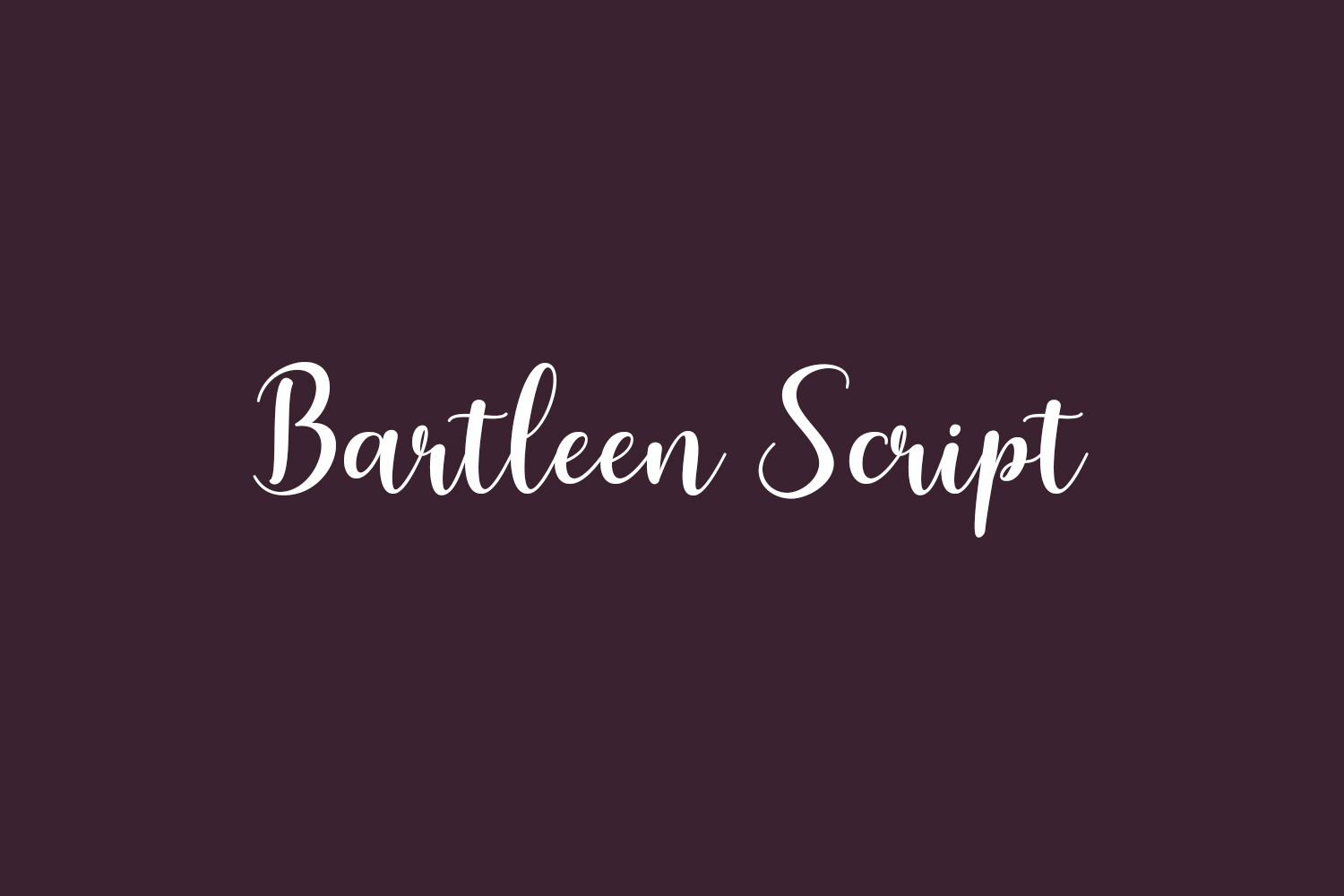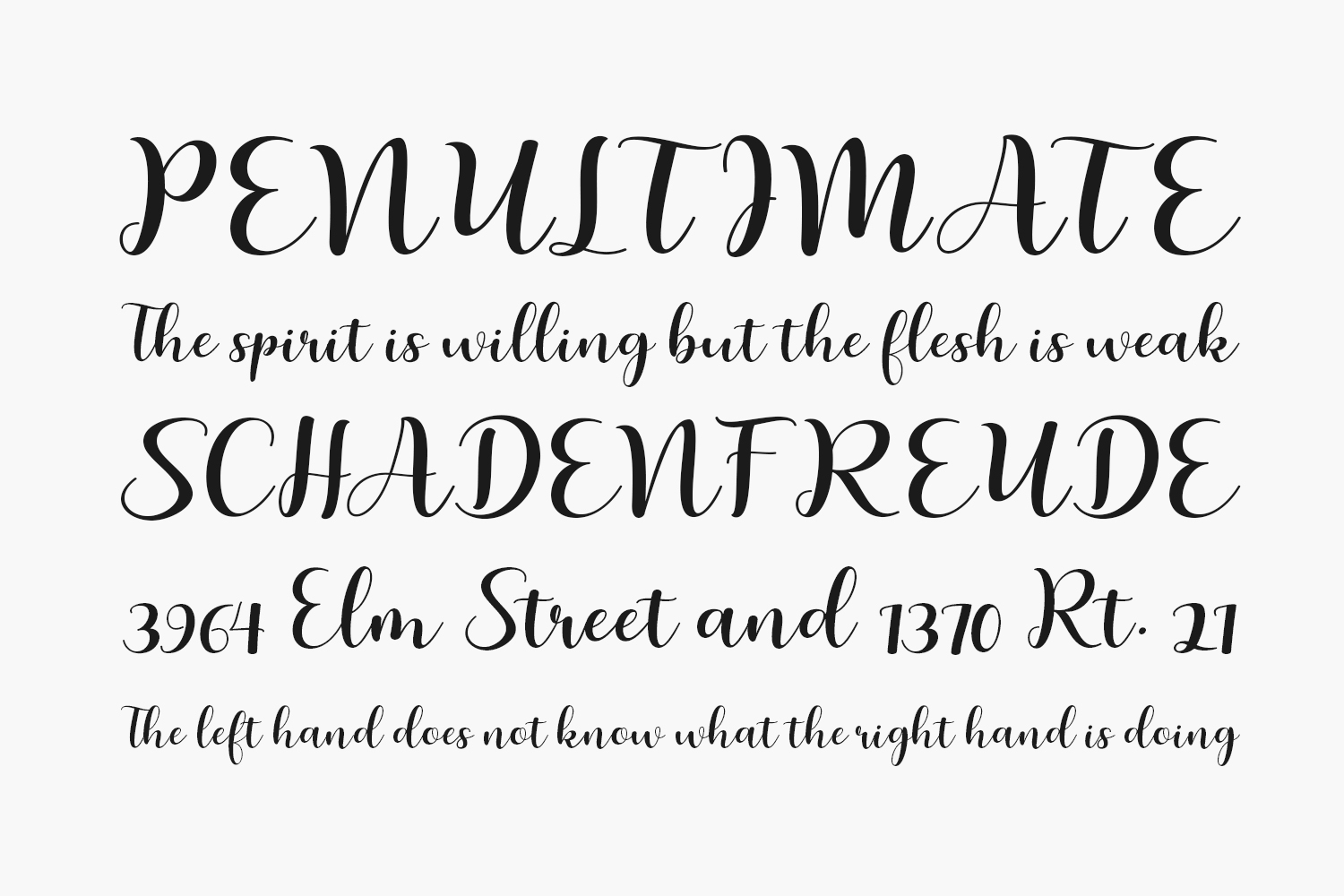
Meet Bartleen Script Free Font – an exquisite and versatile handwritten font featuring two unique styles, where characters gracefully dance along the baseline. Embrace the beauty of this font and elevate your designs with its captivating charm. Bartleen Script Free Font is free for personal use only. Please purchase the full version for commercial use.